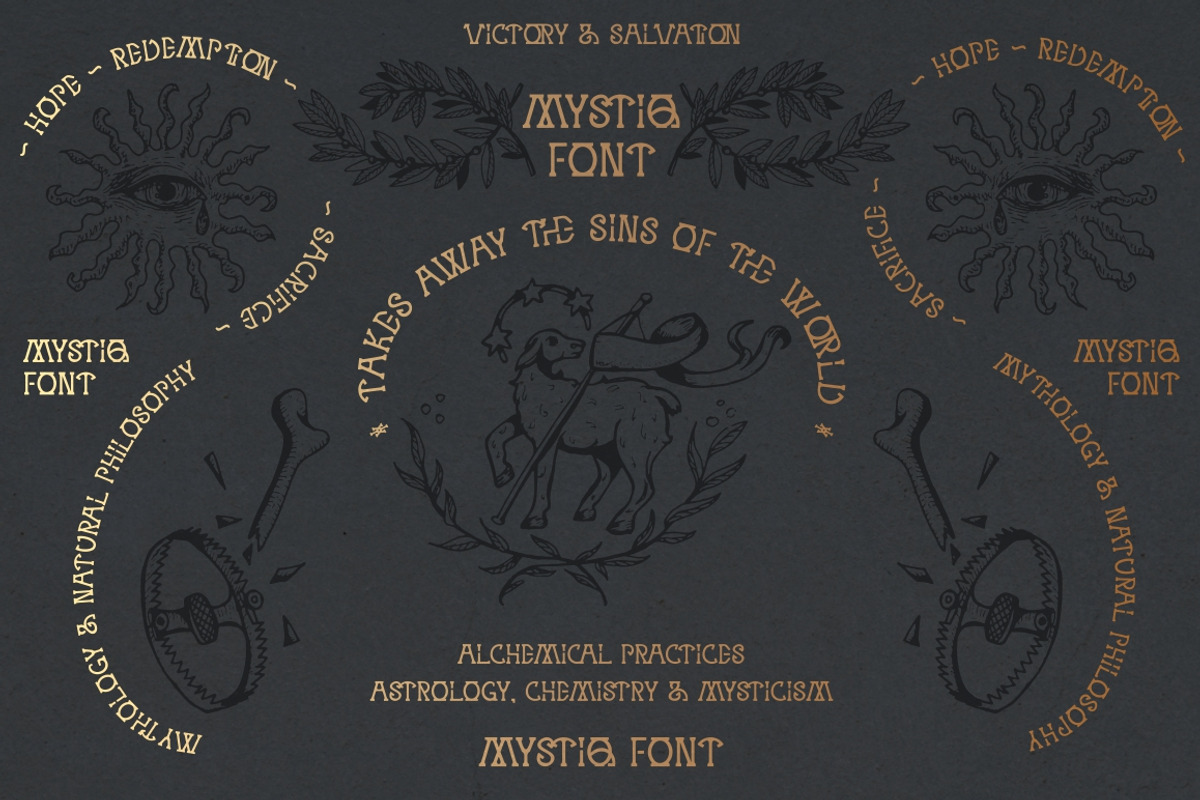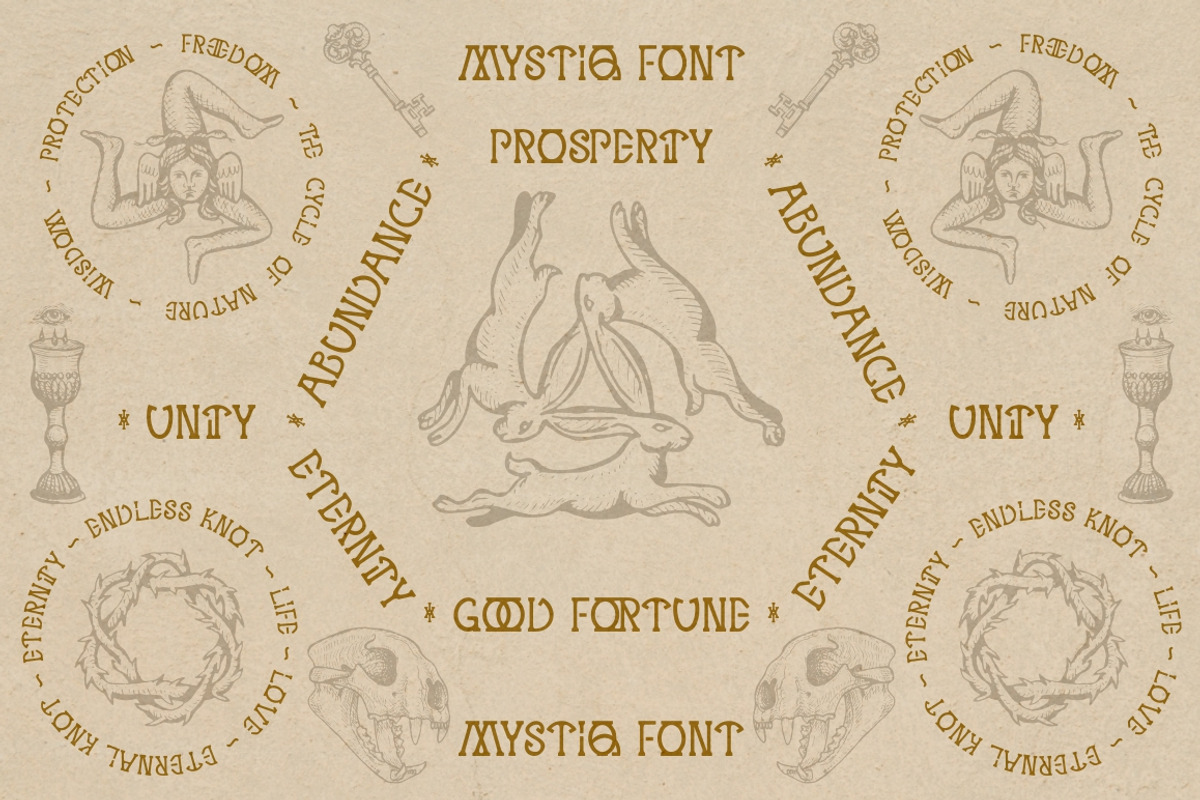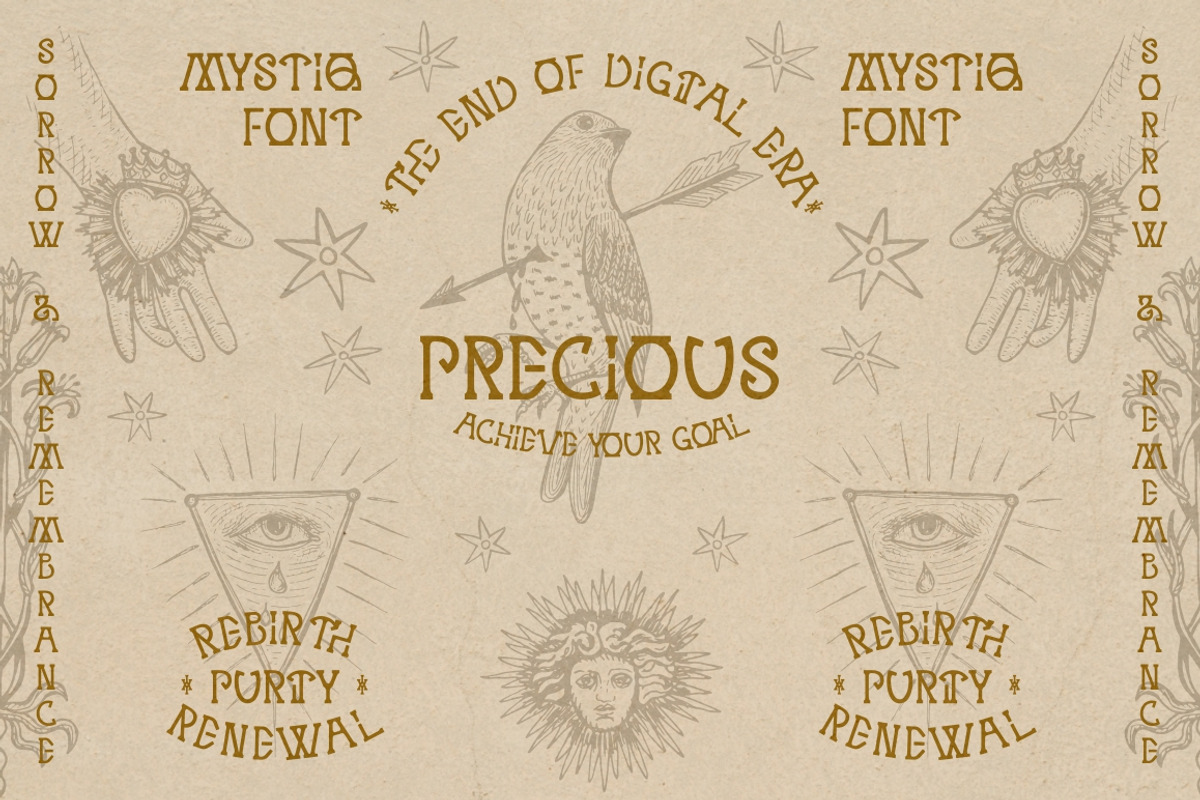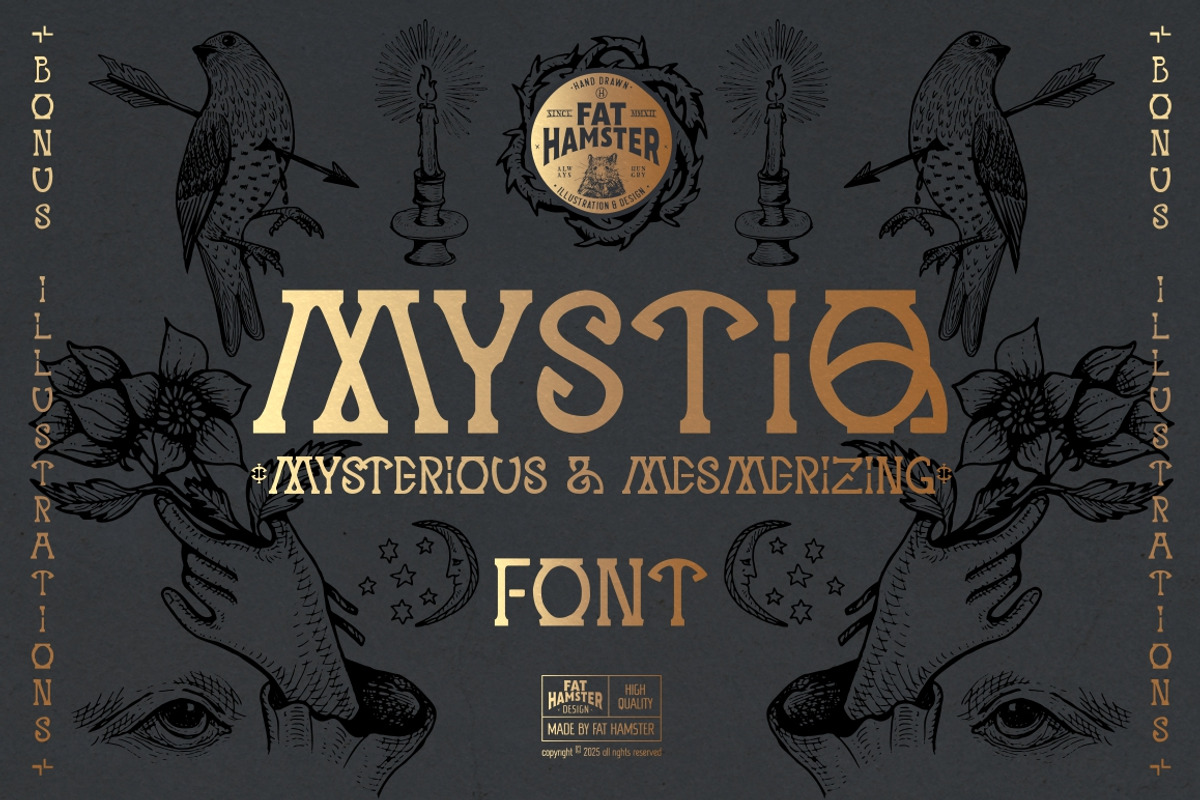
MYSTIQ mysterious display font
MYSTIQ — Mysterious Display Font with Mystic Illustrations
MYSTIQ is a captivating mysterious display font designed to evoke ancient mysticism, spiritual symbolism, and arcane artistry. With intricate ornamental letterforms and magical charm, this typeface brings depth and intrigue to your creative projects. Perfect for bold titles, mystical branding, esoteric posters, tattoo designs, album covers, and fantasy-themed visuals, MYSTIQ blends medieval craftsmanship with modern artistic expression. Bring a sense of magic, mystery, and esoteric charm to your designs with MYSTIQ — Mysterious Display Font.
- Intricate mysterious display style with ornamental details
- Inspired by ancient alchemical symbols, sigils, and engravings
- Striking, decorative characters perfect for headings and titles
- Suitable for both print and digital use
- Includes themed illustrations to complement the font style
Best For
- Mystical & fantasy branding
- Tattoo and apparel design
- Posters, flyers & event graphics
- Album covers, book covers & editorial layouts
- Logos and packaging with an enigmatic aesthetic